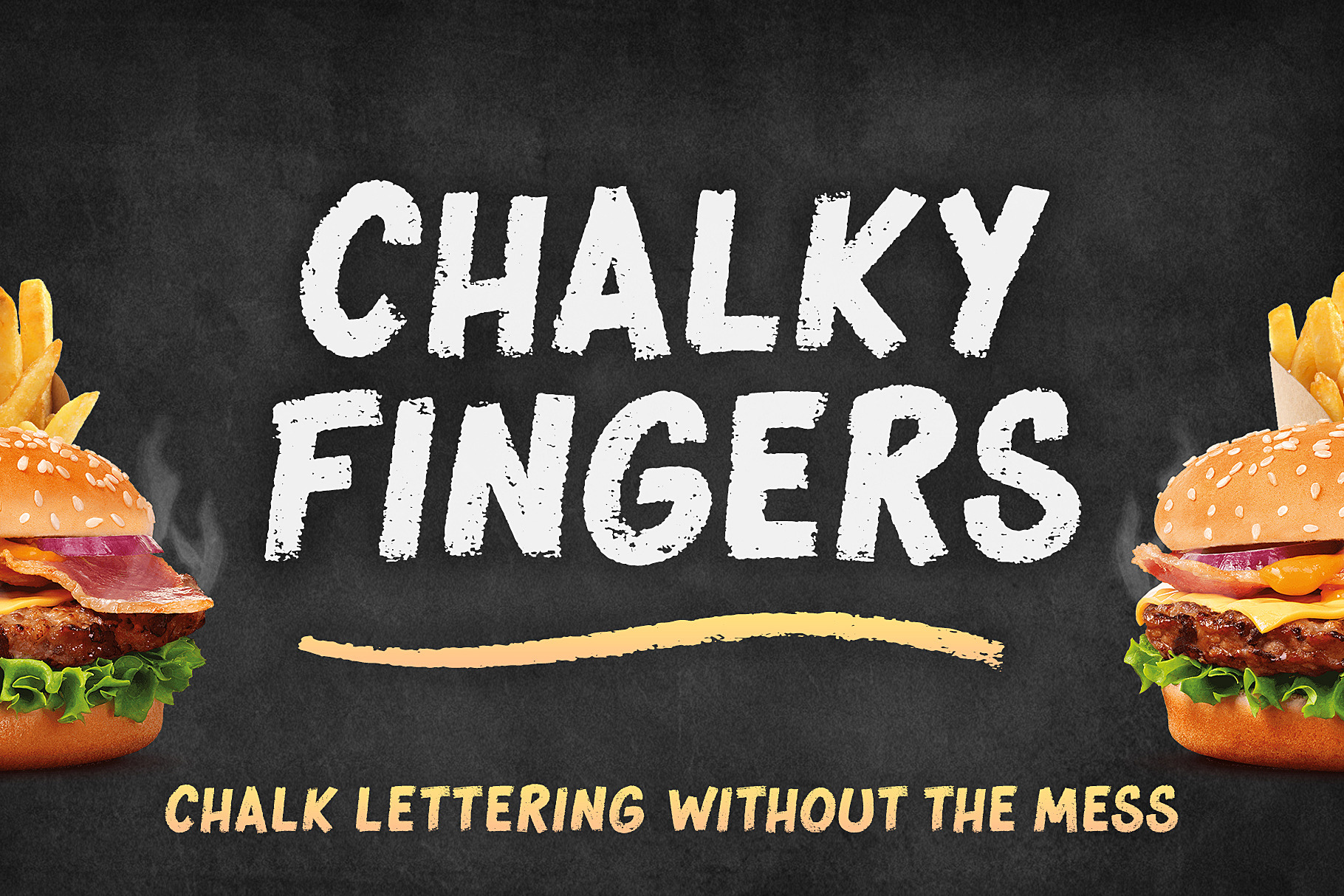
Chalky Fingers - Chalk Font
Chalk lettering without the mess! A rough textured font, hand-drawn with real artists’ chalks and perfect for use on restaurant & cafe menu boards, signage, posters, displays, t-shirts, social quotes, children’s books and food packaging.
Chalky Fingers includes loads of swashes and arrows to give extra emphasis to your messages. Numbers, punctuation and multi-language characters are all included.